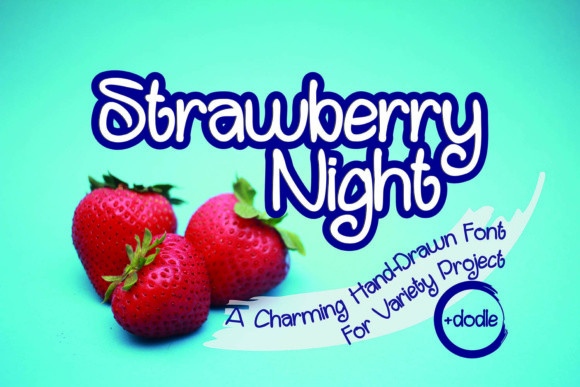
Strawberry Night Font
Strawberry Night Font is perfect for romantic evening branding, dessert boutique signage, valentine's day graphics, sweet treat packaging, intimate restaurant menus, romantic event invitations, berry farm logos, and enchanting fairy tale designs.
This exciting Strawberry Night Font enchants viewers with its sweet romance and dreamy character that captures the essence of starlit evenings and delicious berry delights. The font's whimsical personality and romantic charm make it an exceptional choice for projects requiring sweetness, intimacy, and magical appeal that resonates with audiences who appreciate romantic aesthetics and delightful culinary experiences.
The Strawberry Night Font family encompasses multiple sweet variations including Regular, Bold, Light, Script, Ornate, and Berry versions, providing designers with comprehensive options for creating romantic brand communications and enchanting typographic compositions with authentic sweet romance character.
Savor romantic typography with Strawberry Night Font Free Download - a beautifully crafted typeface that embodies the sweet magic of romantic evenings and berry-inspired delights. This versatile font combines romantic sweetness with contemporary functionality, making it ideal for brands and projects that need to communicate romance, sweetness, and enchanting culinary experiences.
The romantic character of Strawberry Night Font makes it particularly valuable for dessert shops, romantic restaurants, wedding planners, and specialty food businesses that need to convey sweetness, romance, and culinary enchantment. Its dreamy styling appeals to audiences who appreciate romantic dining, sweet treats, and magical evening experiences.
Culinary designers choose Strawberry Night Font for its authentic romantic atmosphere and exceptional sweet appeal across various food service applications. The font maintains its enchanting charm from small dessert labels to large restaurant signage, ensuring consistent romantic branding and sweet appeal throughout all culinary communications.
The distinctive personality of Strawberry Night Font creates immediate emotional connections through powerful associations with romance, sweetness, and magical dining experiences. This makes it invaluable for brands seeking to leverage romantic appeal and culinary enchantment for marketing campaigns and romantically focused food service positioning.
Romance-focused food brands utilize Strawberry Night Font to establish authentic identities that communicate sweetness, romantic atmosphere, and culinary magic in competitive hospitality markets. The typeface's romantic appeal helps businesses differentiate themselves while attracting consumers who value romantic dining experiences, sweet indulgences, and enchanting culinary memories in their lifestyle choices.